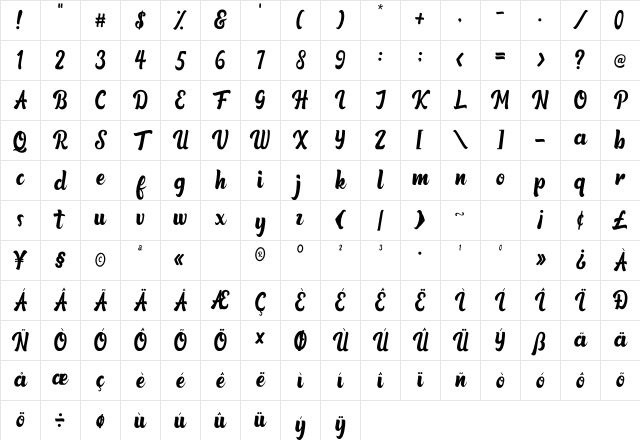
Qintoun Regular
Foundry: StringLabs
Designer: Virgiawan Listanto
Design Context for Qintoun
Qintoun is a composed and adaptable typeface that performs quietly and consistently across a wide range of design contexts.